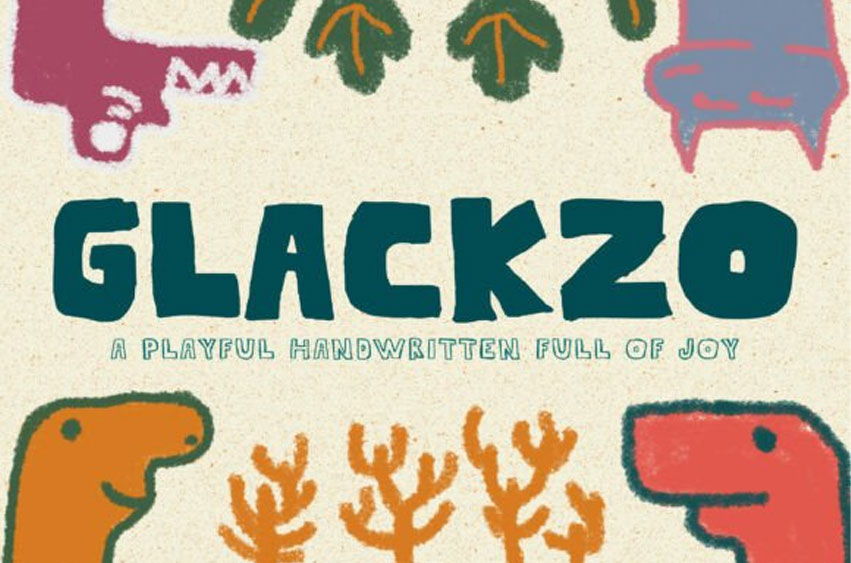
Glackzo Font
Glackzo Font is a bold and spirited handwritten font that radiates joy and personality. With its chunky curves and carefree charm, it feels as though each letter leapt from the pages of a whimsical sketchbook. Bursting with playful energy, Glackzo brings a handcrafted warmth that’s perfectly imperfect — just like a child’s imagination set free.
From kids’ branding and educational materials to party invitations and cheerful illustrations, Glackzo turns text into a celebration. Its expressive quirks, rough edges, and vibrant rhythm infuse every word with character and fun, making it a delightful choice for any design in need of heart and happiness.